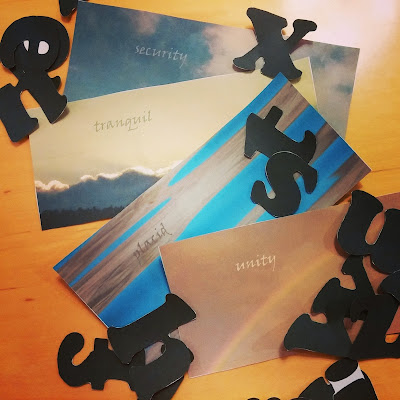
This time I started backwards and figured out the display format first. I've been wanting to try a flag book forever, so I settled on that for my format. Then, what to put on the pages???? How to depict peace - overwhelmed by the global scope of the idea. So I brought it back to a more personal level: words and colors that bring me peace, that help me feel calm and peaceful.
I'm incorporating my photography by choosing images and closeups that feel peaceful to me and the lettering will be all in shades of blue/green which are the most peaceful colors. I have all my flag pages done and the patterns for the letters, but the letters aren't all cut out yet..... here's a hint of what I'm thinking....
Each page will have a word speaking to the idea or feeling of peace. I'm excited to pull this all together by the end of the year.